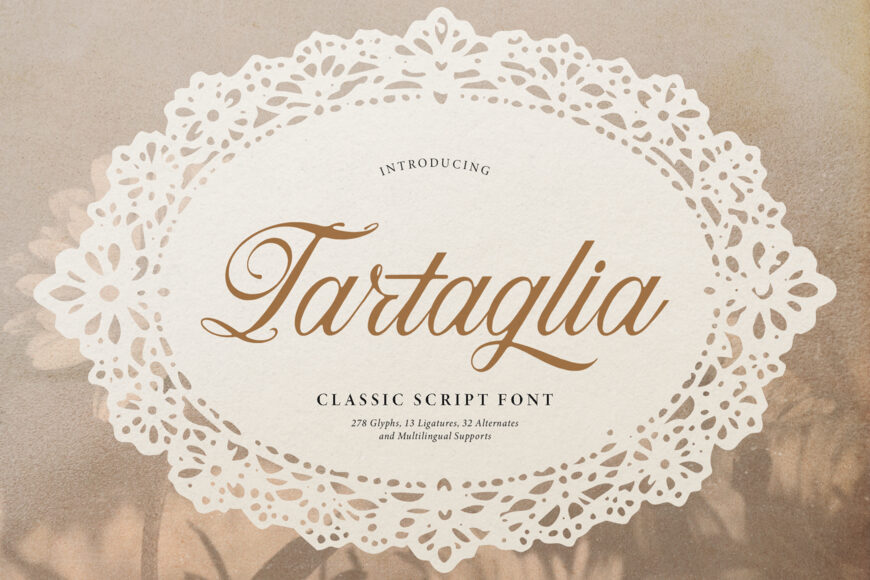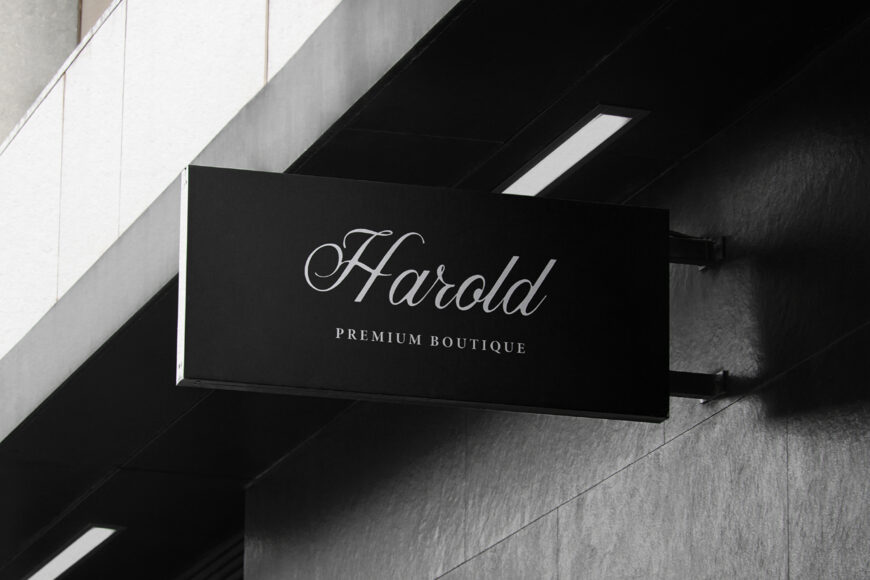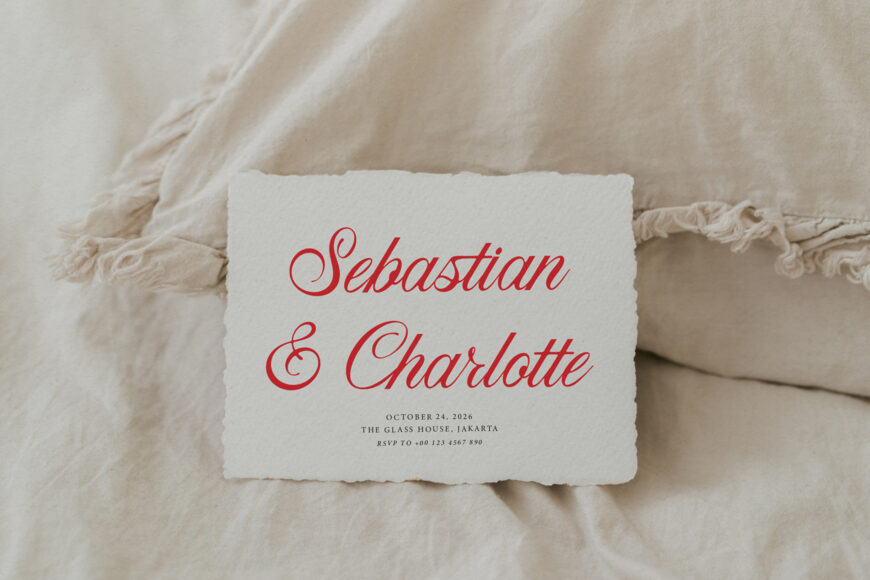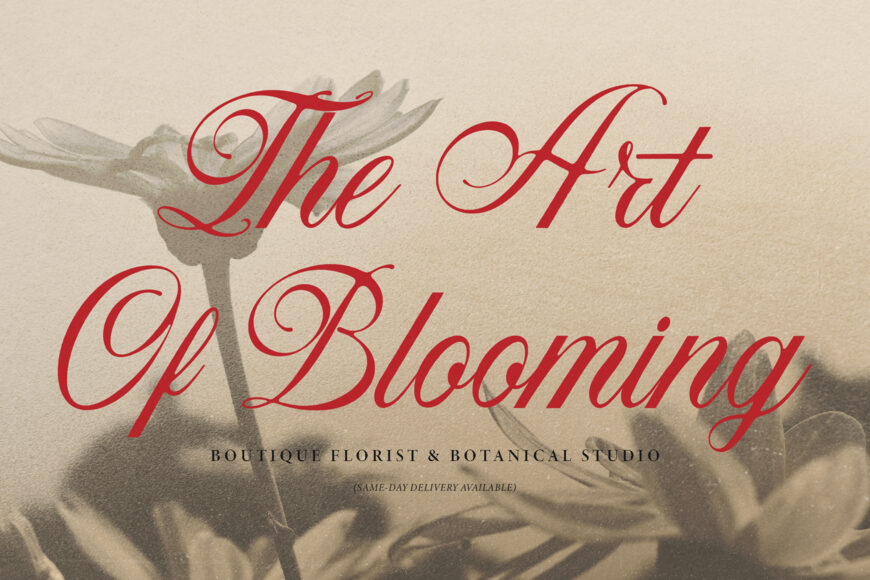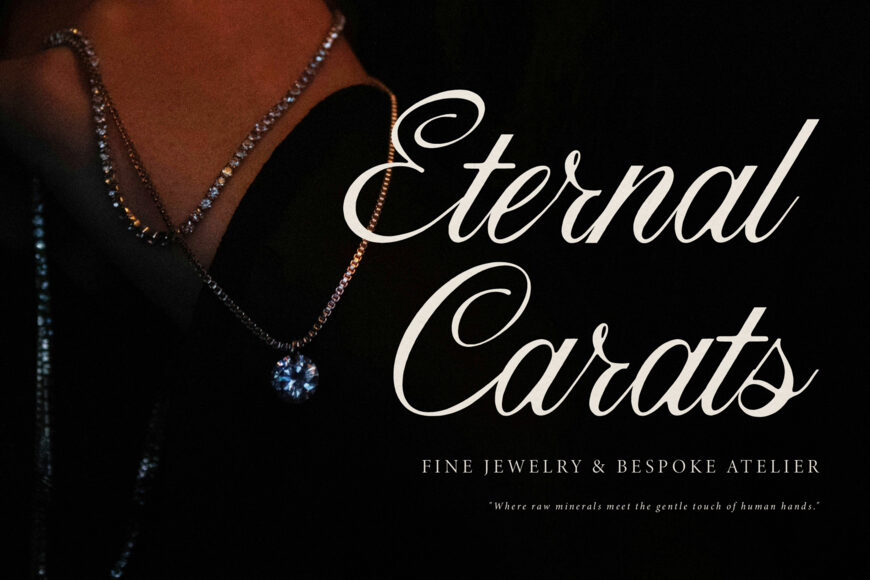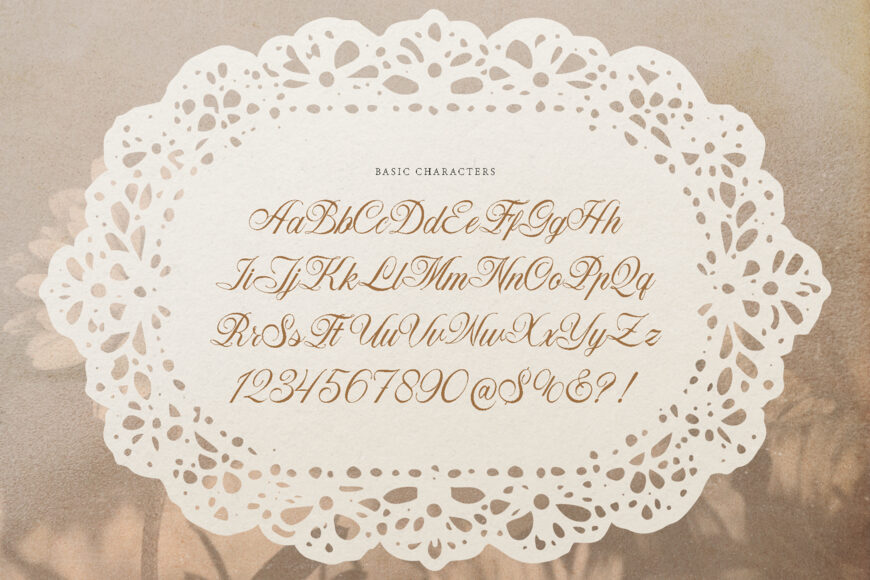
Infuse vintage elegance, sophisticated calligraphy, and classic romantic charm into your layouts with Tartaglia! Designed as a refined classic script font, it features graceful looped capitals, smooth flowing connections, and delicate swash accents reminiscent of timeless handwriting.
Ideal for wedding invitation suites, vintage lace branding, luxury product packaging, romantic stationery, logo design, quote art prints, and custom Cricut or Silhouette craft SVG creations!